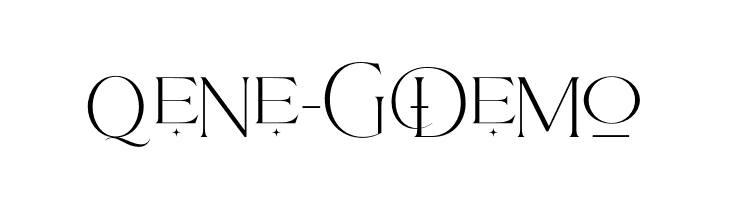
A modern, elegant font with high contrast and decorative elements.
An elegant and artistic font with elongated letterforms and decorative elements.
A sophisticated cursive script with elegant, fluid lines.
A bold, high-contrast serif font with dramatic strokes and elegant serifs.
A graceful, calligraphic script font with elegant flourishes.
Cartoon face-based decorative font with playful expressions.
Whimsical, cartoon-style decorative font with unique character illustrations.
A decorative font with an exotic, ancient script style.
A graceful script font with elegant loops and swashes, reminiscent of classic calligraphy.
A futuristic, geometric font with rounded edges and hollow spaces.